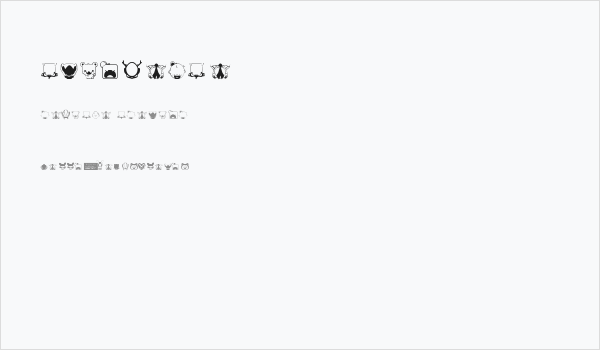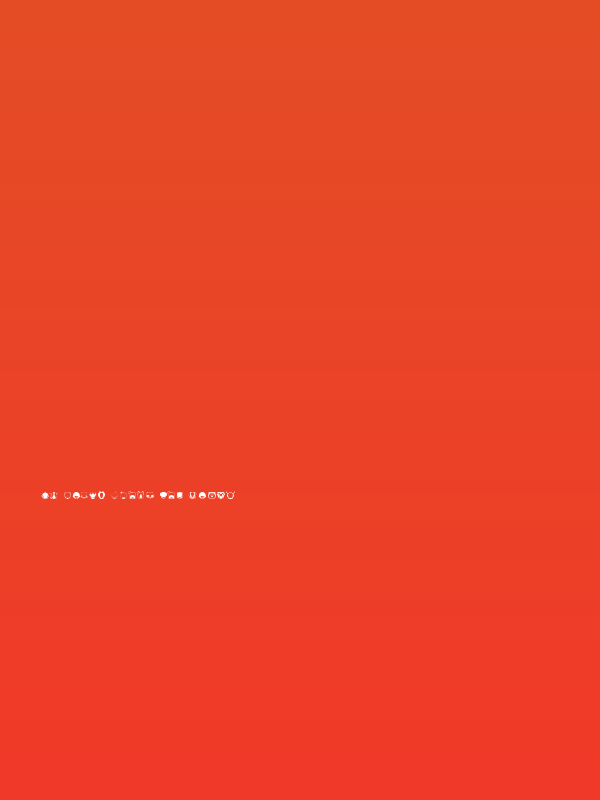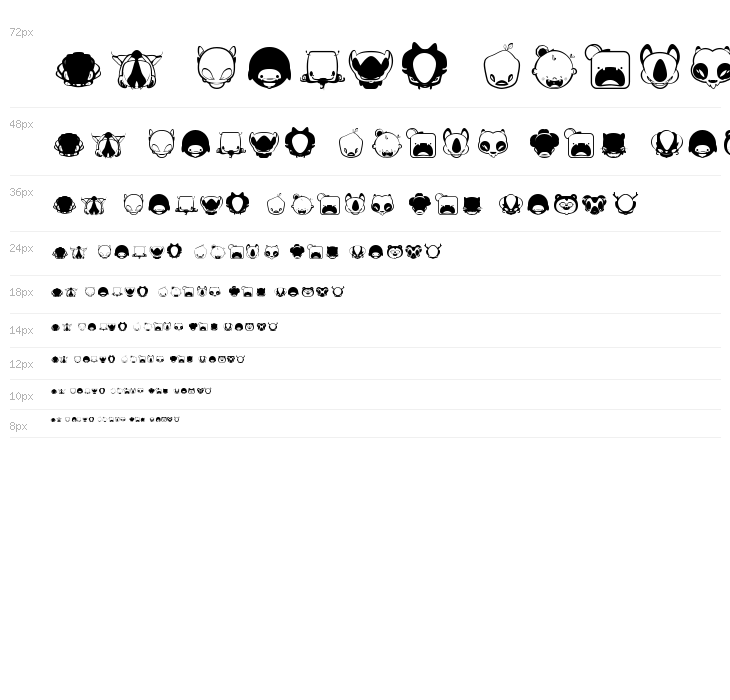
Pictoserie 6 Font
Pictoserie 6 Description
A decorative font composed of unique, cartoon-style animal and character faces for each glyph, featuring bold outlines and playful, whimsical designs. Each character is highly stylized and distinct, making the set visually engaging and suitable for creative projects.
Overall StyleDecorative, Playful, Whimsical
Use CaseLogos, Posters, Children's materials, Decorative headings
Proposed ProjectsChildren's books, party invitations, educational materials, playful branding, posters, stickers.